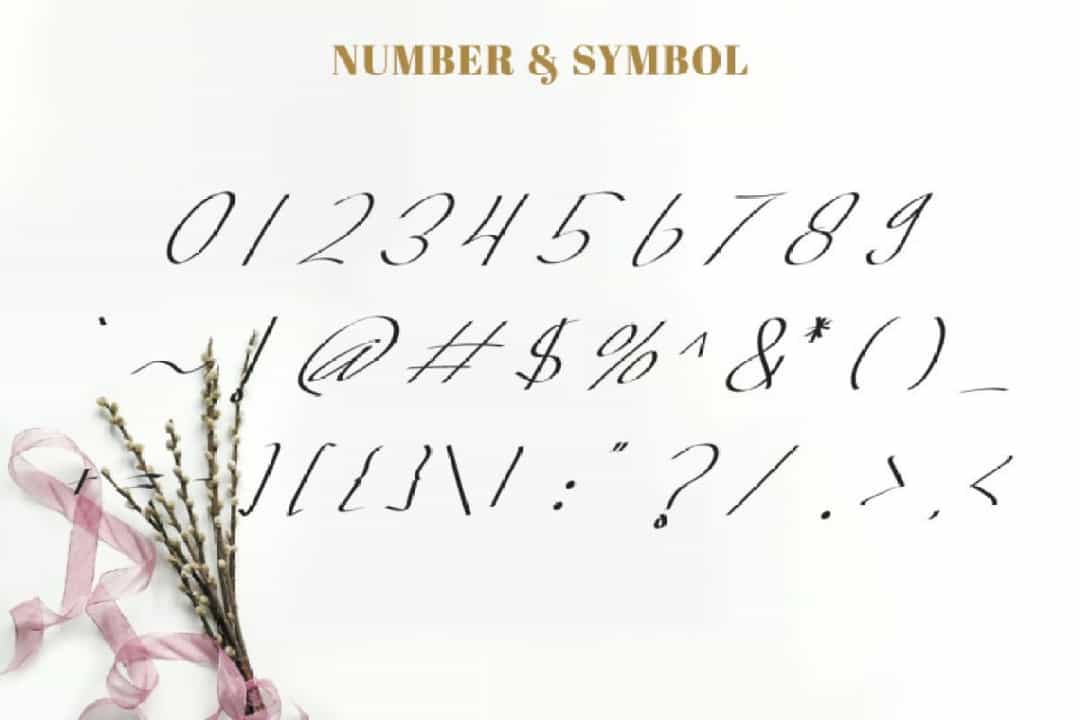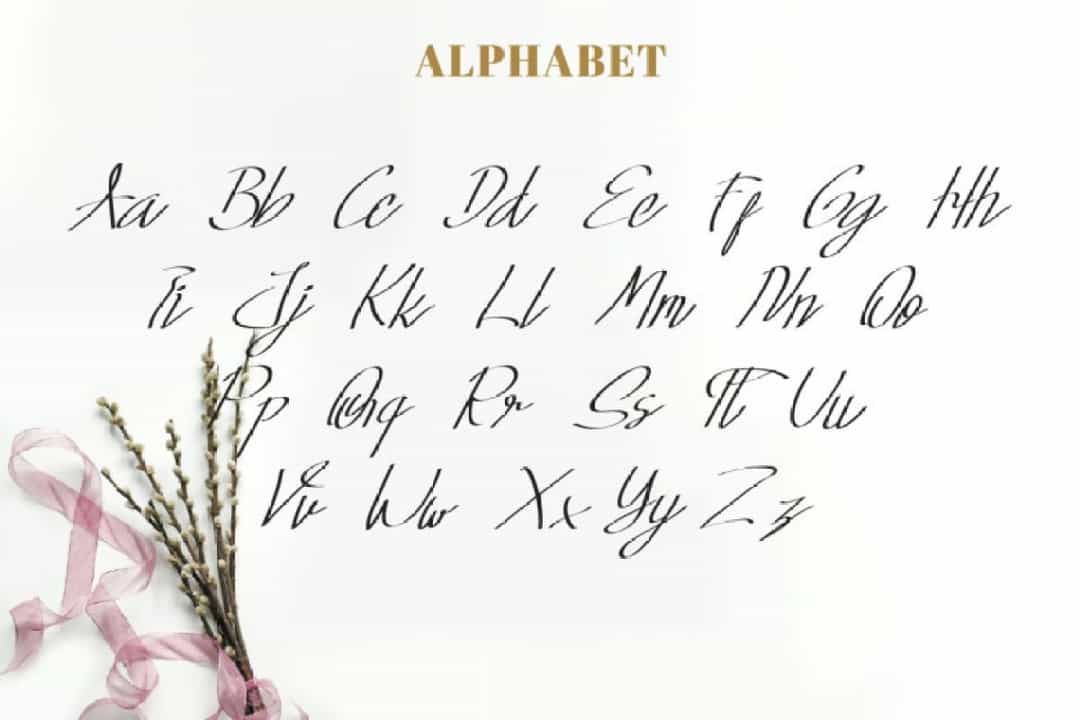
Introducing our third font. The situation in our corner of the universe is… Long Knive! This is for the latest modern alphabets calligraphy style text font. The type has a clean line, natural elegance, touch of naturalness and unique decoration.